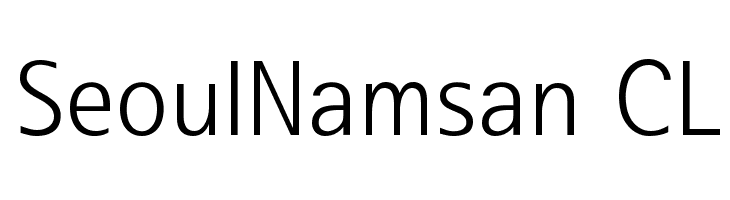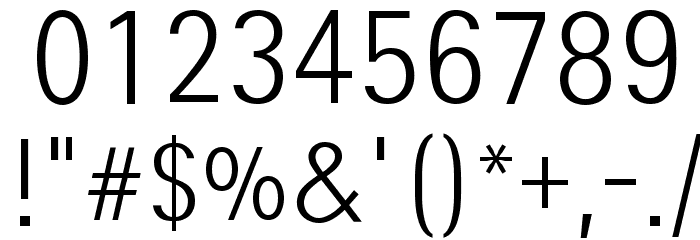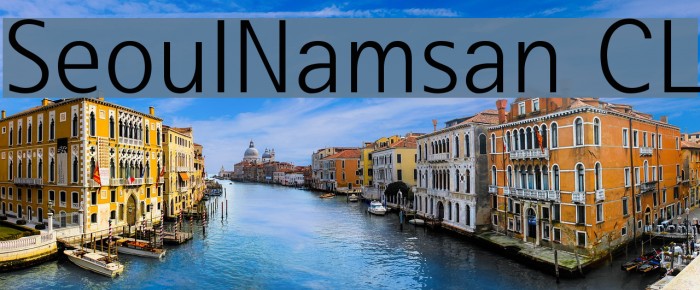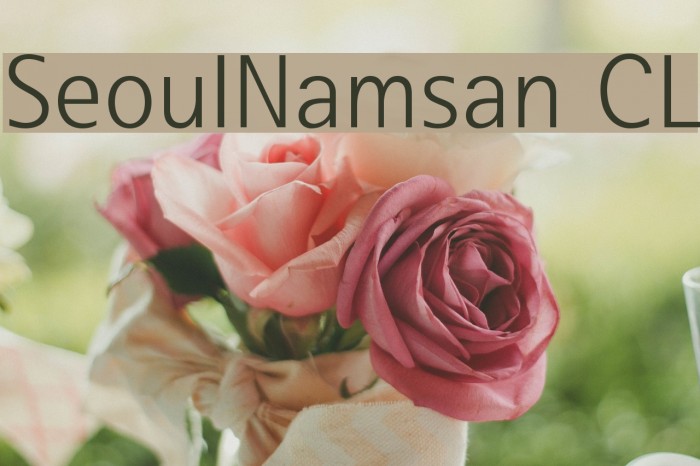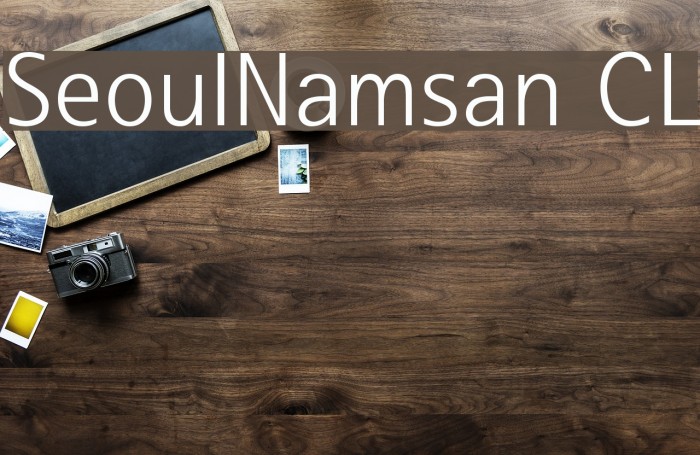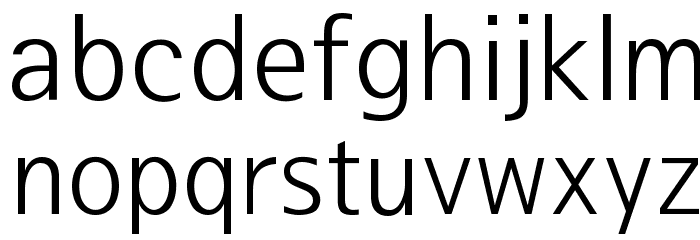
SeoulNamsan CL Font
This font features a clean and modern sans-serif design, characterized by its simplicity and readability. The characters are evenly spaced with a consistent stroke width, providing a harmonious and balanced appearance. The uppercase letters are bold and assertive, while the lowercase letters maintain a friendly and approachable look. The numerals are clear and easy to distinguish, making them suitable for various applications. Special characters are well-defined, enhancing the font's versatility. Overall, this font's straightforward design makes it ideal for both digital and print media.
A modern, clean sans-serif font with balanced spacing and consistent stroke width.